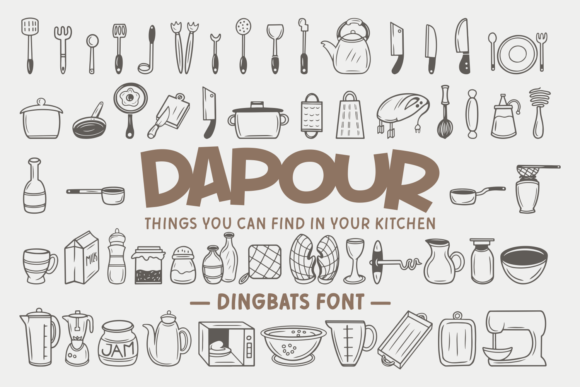
Embark on a culinary adventure with Dapour, the charming dingbats font that brings the warmth of home into your digital creations.
Dapour is not just a font; it's an invitation to express your love for food, cooking, and all things kitchen-related. This delightful dingbats font is packed with playful icons, mouthwatering ingredients, and whimsical kitchenware that will add a dash of flavor to your designs.
Picture this: you're working on a food blog post, and you want to add a touch of personality to your recipe instructions. With Dapour, you can easily incorporate charming icons for each ingredient, turning your recipe into a visual feast. Or, perhaps you're creating a social media post promoting your new cooking class. Dapour's vibrant icons will make your post pop and entice foodies to sign up.
The possibilities are endless with Dapour. Use it to design eye-catching menus, create personalized kitchen labels, or add a touch of whimsy to your recipe cards. Dapour is the perfect font to showcase your passion for food and cooking, whether you're a professional chef, a home cook, or simply a food enthusiast.
Bonus tip: pair Dapour with a handwritten font to create a truly unique and inviting look.